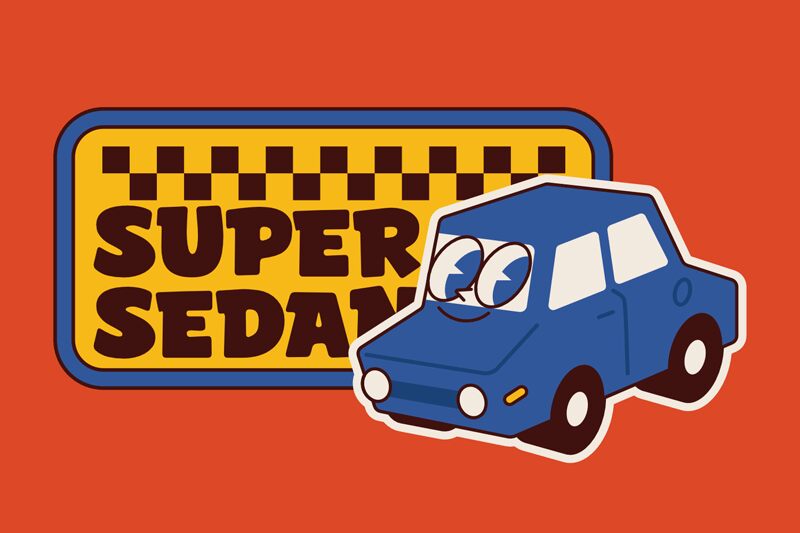
Super Sedan
Super Sedan is a vibrant and lively display font designed by fsuarez913.
With its ultra-bold weight and semi-expanded width, this font is perfect for eye-catching headlines, posters, and logos that demand attention. Its playful and cartoonish style adds a touch of fun to any design project, making it suitable for children's books, comic strips, video game titles, and more.
Super Sedan guarantees to bring your designs to life with its boldness and energetic appeal.